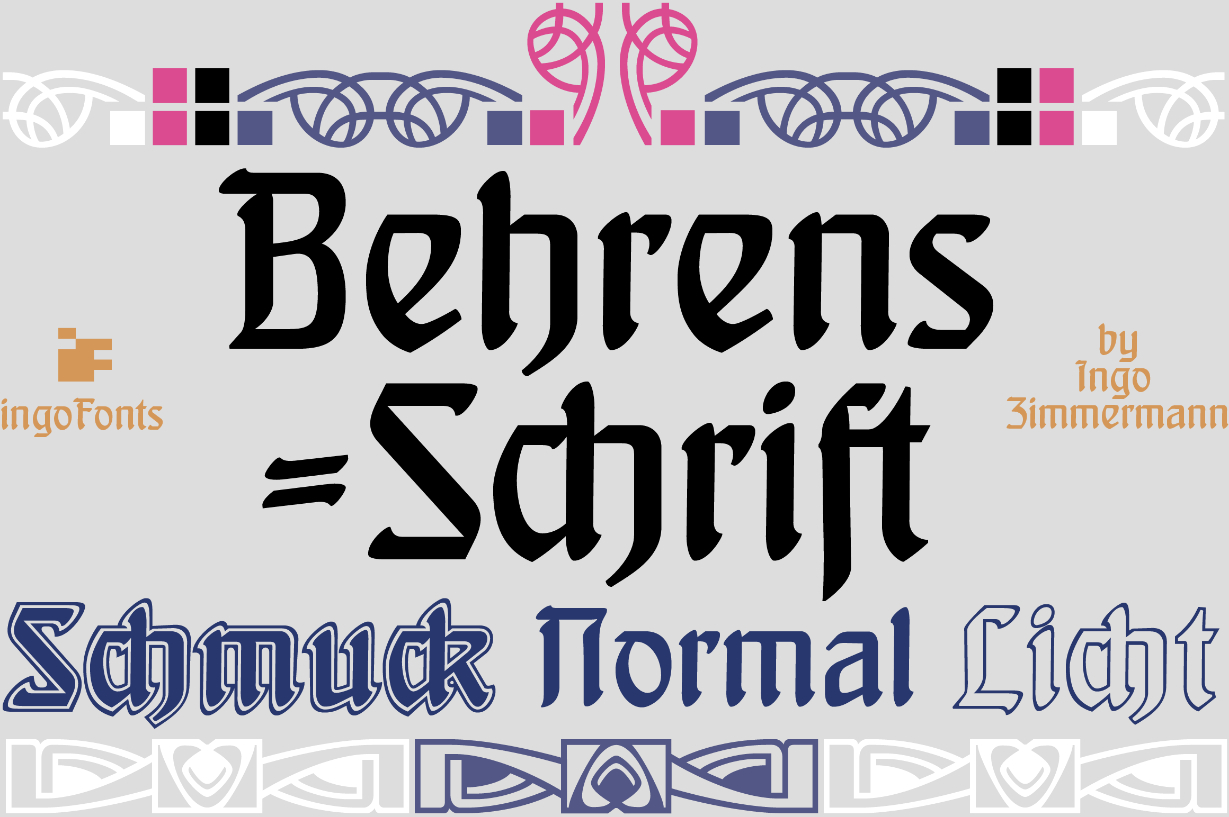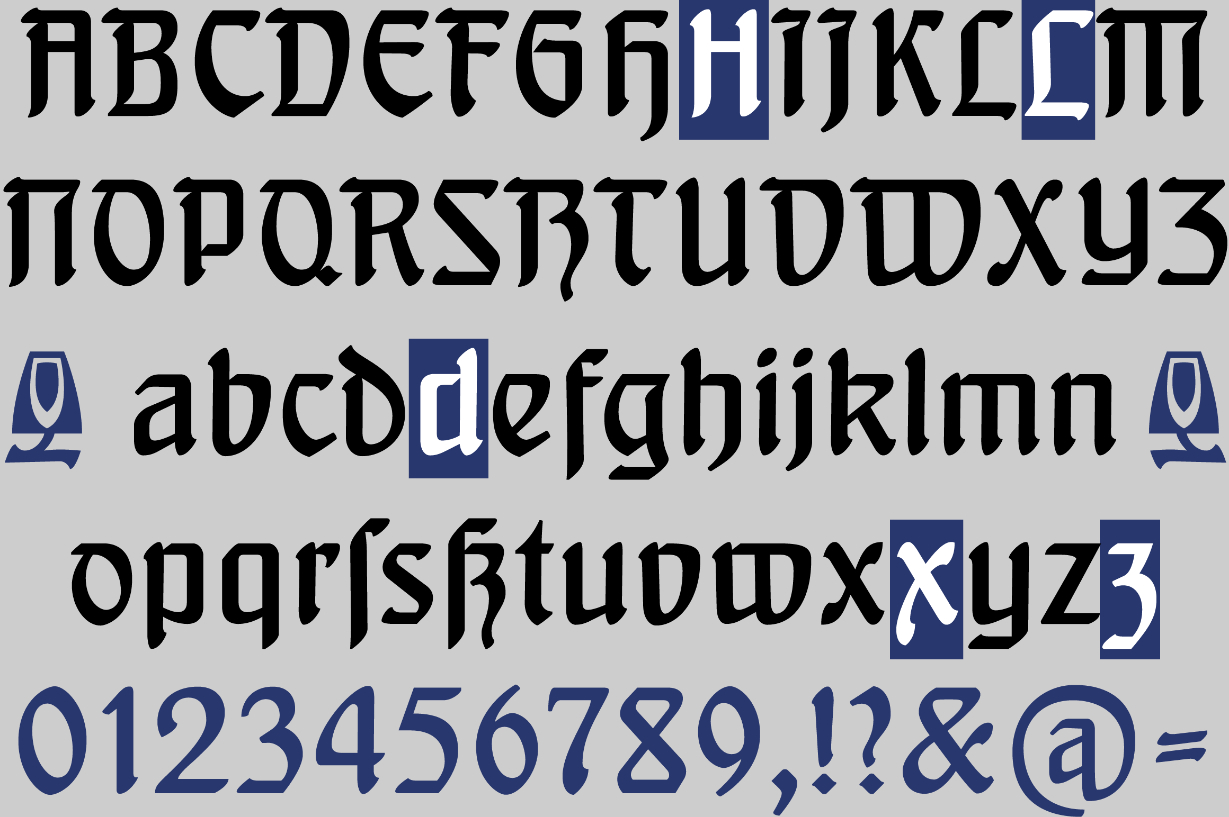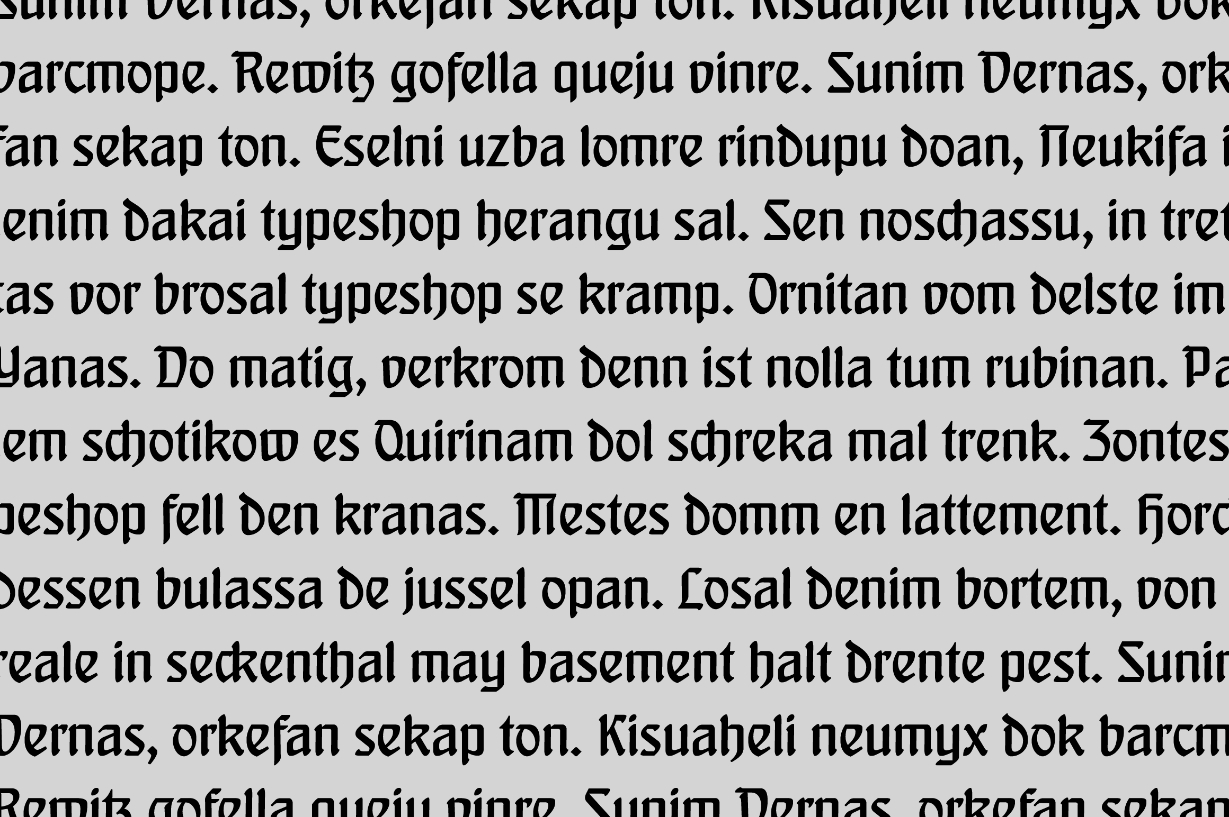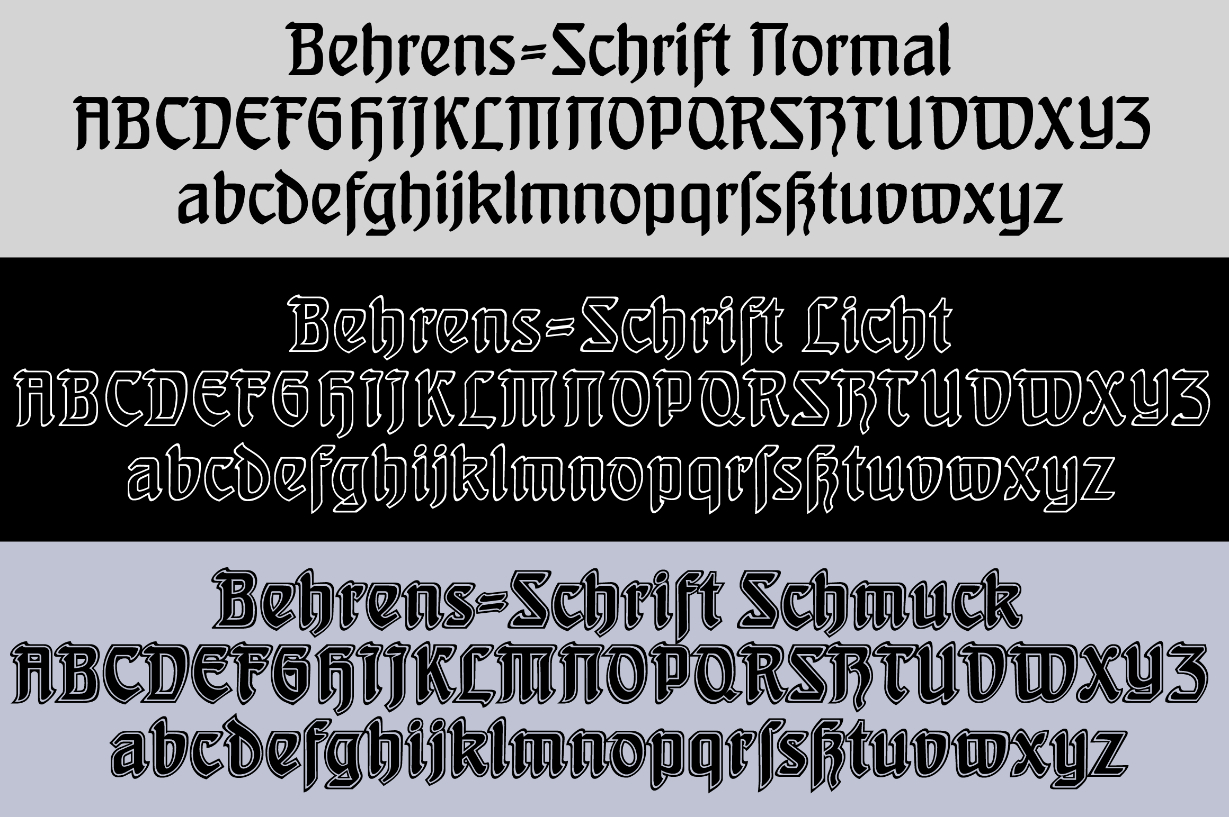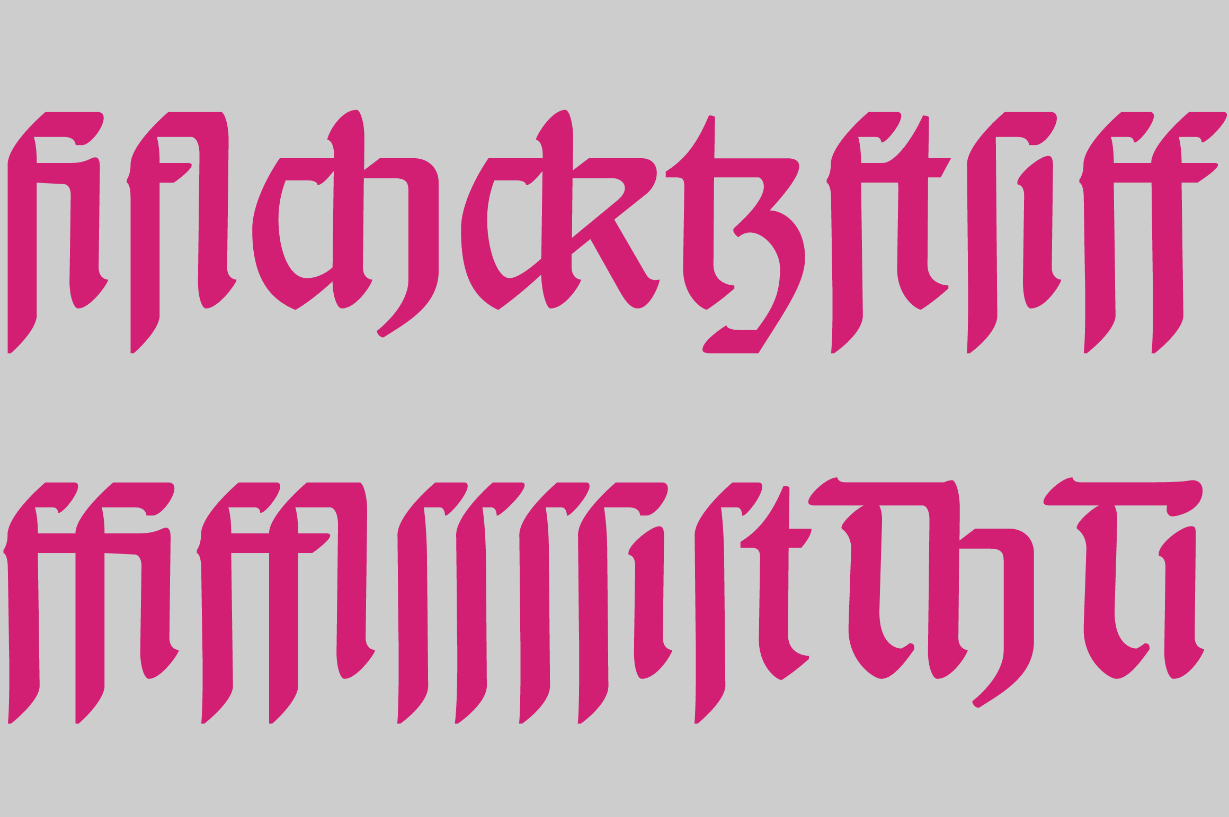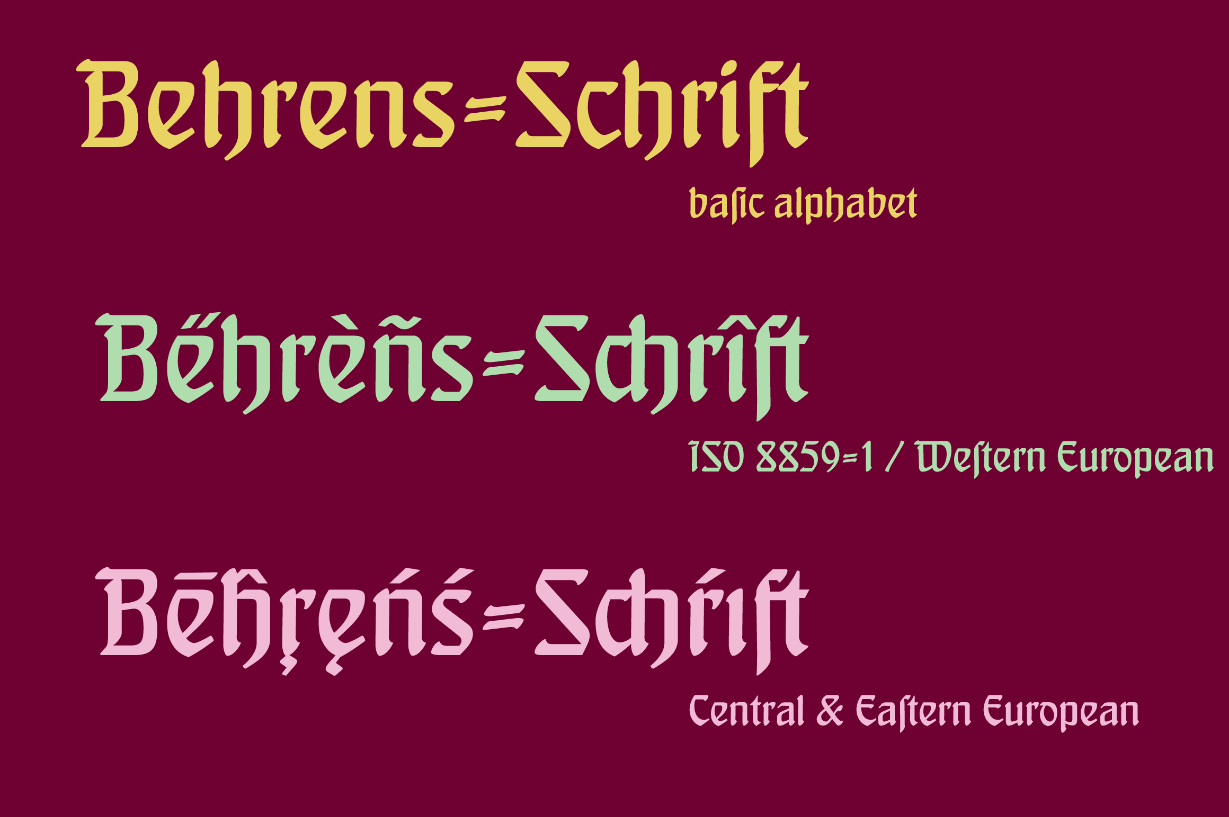
Behrens-Schrift Font
About Behrens-Schrift Font
Behrens-Schrift is a unique font inspired by a renowned art nouveau type from 1902 with ornaments. It will turn any design project into a unique stand out!